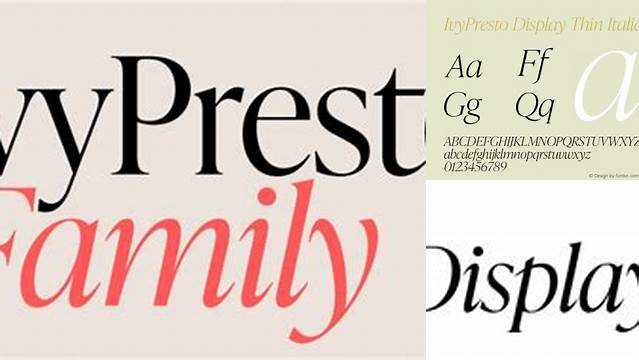
IvyPresto Font Free Download: A Display Family
Hey guys! Ever stumbled upon a font that just pops? That's IvyPresto for you. It's a display font family that's been making waves in the design world, and for good reason. It's got personality, it's versatile, and the best part? You can find free downloads for it. Let’s dive into why IvyPresto is such a gem and how you can get your hands on it.
1. What is IvyPresto Font Family?
So, what exactly is the IvyPresto Font Family? Well, it's a beautifully crafted display typeface that comes in a variety of weights and styles. Think of it as your go-to font when you need something that stands out. Whether you're working on a website header, a poster, or even a logo, IvyPresto can add that touch of elegance and modernity that you’re after. The font family is designed with precision, ensuring each letterform is perfectly balanced and readable, even at larger sizes. Its unique characteristics make it a favorite among designers looking for a distinctive touch. Plus, with the different weights available, you have the flexibility to create a cohesive look across various design elements. From bold headlines to subtle subheadings, IvyPresto delivers a consistent and professional appearance. This makes it an invaluable asset in any designer's toolkit, ensuring your projects always make a memorable impact.
2. History and Origin of IvyPresto
Let's take a little trip down memory lane, shall we? Knowing the history and origin of a font can give you a deeper appreciation for its design. IvyPresto wasn't just whipped up overnight; it's the brainchild of talented designers who poured their heart and soul into creating something special. Knowing the origin story helps you understand the nuances in its design. The creators of IvyPresto aimed to strike a balance between classic elegance and contemporary flair. This blend is evident in the font's clean lines, refined curves, and overall aesthetic. The font family has undergone several iterations and refinements, each step enhancing its usability and visual appeal. Understanding its historical context can also help you appreciate how it fits into the broader landscape of typography and design trends. IvyPresto's roots are firmly planted in the tradition of high-quality display fonts, yet it continues to evolve, adapting to the changing needs and preferences of designers. This rich history contributes to its timeless quality, making it a reliable choice for various design applications.
3. Key Features and Characteristics
Okay, let's get into the nitty-gritty. What makes IvyPresto so special? It's all in the details, guys! Think of its key features – the elegant curves, the sharp serifs (or lack thereof, depending on the style), and the overall legibility. These elements combine to create a font that’s both eye-catching and easy to read. One of the defining characteristics of IvyPresto is its versatility. It works equally well in print and digital media, making it a valuable asset for a wide range of projects. The font's well-balanced proportions ensure that text remains clear and readable, even in small sizes. Additionally, IvyPresto's distinct personality allows it to stand out without being overly distracting. This makes it an excellent choice for headlines, logos, and branding materials where you want to make a statement. The careful attention to detail in its design ensures that it maintains its aesthetic appeal across different weights and styles. Overall, IvyPresto's blend of elegance, readability, and versatility makes it a standout choice for designers.
4. Different Weights and Styles Available
Variety is the spice of life, and IvyPresto doesn't disappoint! It comes in a range of weights and styles, giving you plenty of options to play with. From light and airy to bold and impactful, there's an IvyPresto for every occasion. The different styles available include regular, italic, bold, and bold italic, providing a comprehensive toolkit for your design needs. Each weight and style is carefully crafted to maintain the font's overall aesthetic while offering distinct visual options. This allows you to create a dynamic hierarchy within your designs, using different weights to emphasize key elements. The italic versions add a touch of elegance and can be used to highlight specific text or create visual contrast. With this range of options, you can ensure that your typography always complements your overall design, whether you're working on a website, a brochure, or a poster. The flexibility offered by IvyPresto’s diverse styles makes it a versatile and valuable addition to any designer’s font library.
5. Ideal Uses for IvyPresto Font
So, where does IvyPresto really shine? Think branding, editorial design, web headers – the sky's the limit! It's perfect for projects that need a touch of sophistication and modernity. Its ideal uses span across various design disciplines, making it a versatile choice for different projects. For branding, IvyPresto can create a memorable and elegant visual identity. Its clean lines and distinctive character make it suitable for logos, business cards, and marketing materials. In editorial design, it works beautifully for headlines, subheadings, and body text, adding a touch of sophistication to magazines, books, and online articles. Web designers often use IvyPresto for website headers and navigation menus, where its readability and visual appeal can enhance the user experience. Additionally, it's an excellent choice for posters, flyers, and other promotional materials, ensuring your message stands out. The font’s adaptability makes it a go-to option for any project that requires a refined and contemporary touch. Whether you're designing for print or digital media, IvyPresto can help you achieve a professional and polished look.